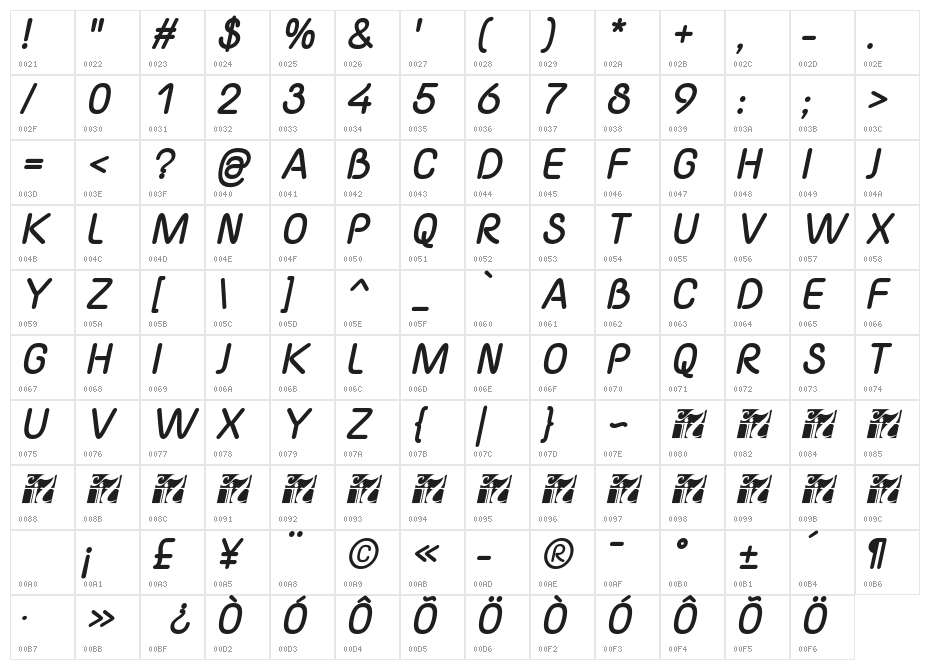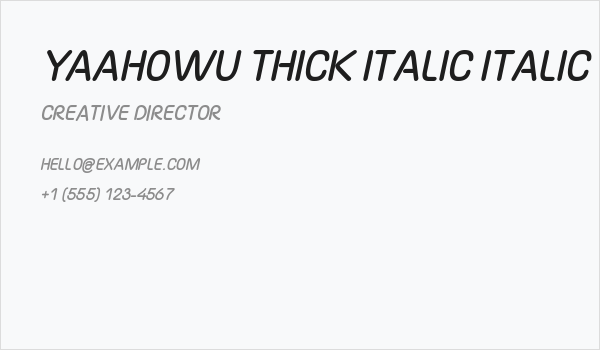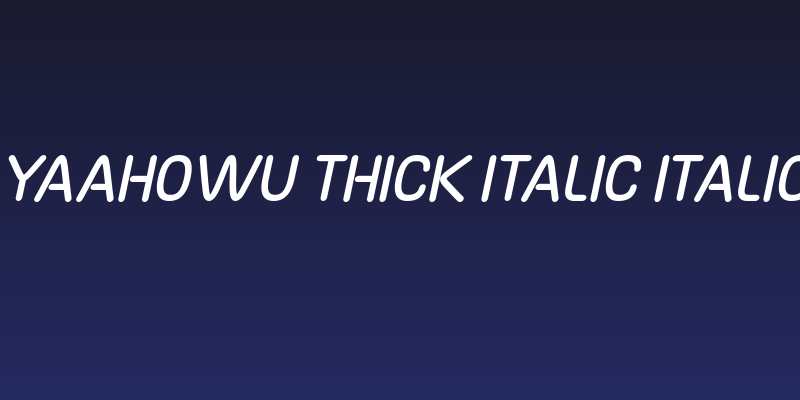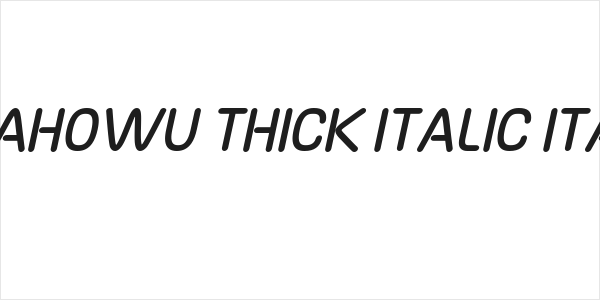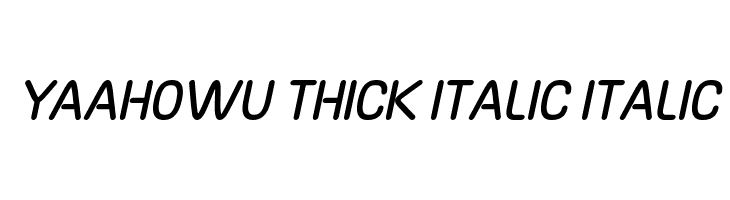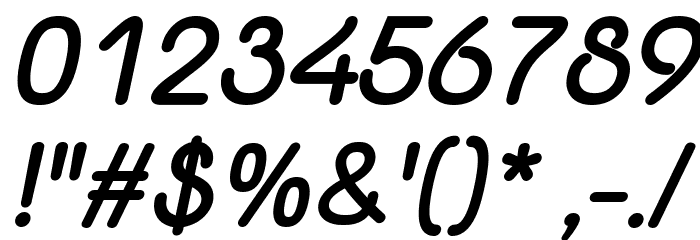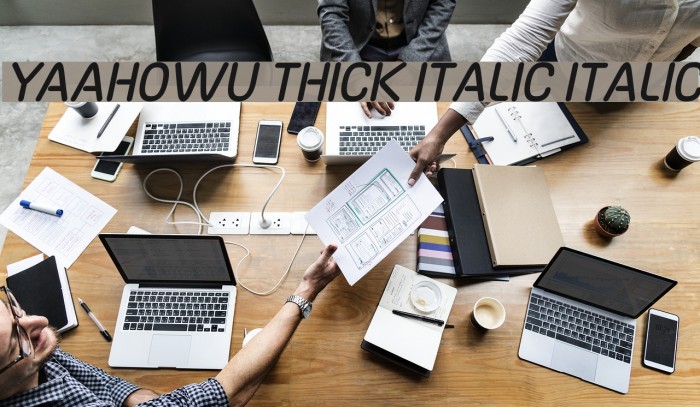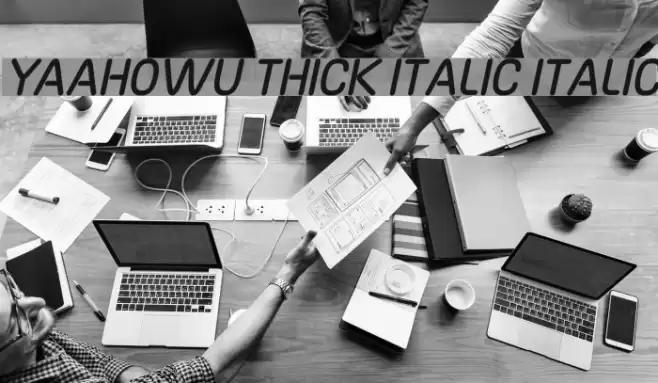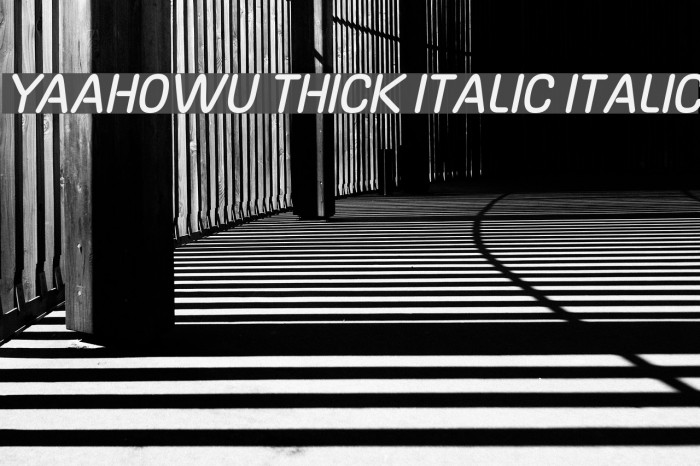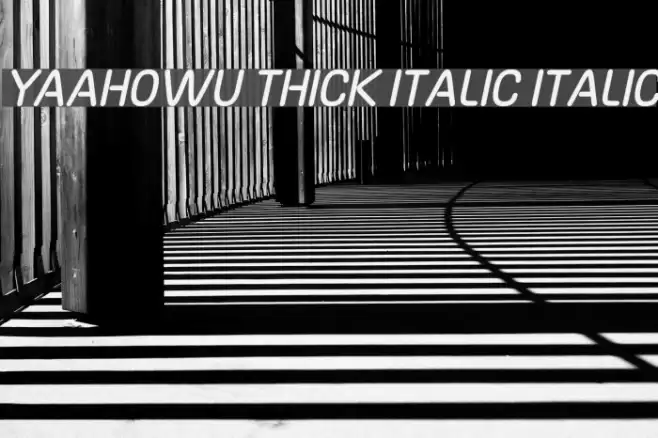
Yaahowu Thick Italic Italic Font
Yaahowu Thick Italic Italic Description
This font features a bold and italicized style that exudes a sense of modernity and dynamism. The characters are slightly slanted, giving them a forward-moving appearance, which adds to the energetic feel of the typeface. The strokes are thick and consistent, providing a strong visual impact. The rounded edges of the letters soften the overall look, making it approachable and friendly. The spacing between characters is balanced, ensuring readability while maintaining the font's distinctive style. This typeface is versatile, suitable for a variety of design projects that require a bold statement.
| Use Case | Headlines, Logos, Branding |
| Proposed Projects | Ideal for branding, advertising, headlines, and any design project that requires a bold and modern touch. |